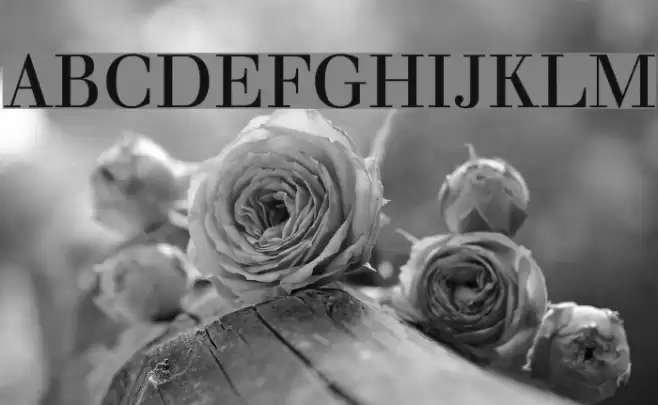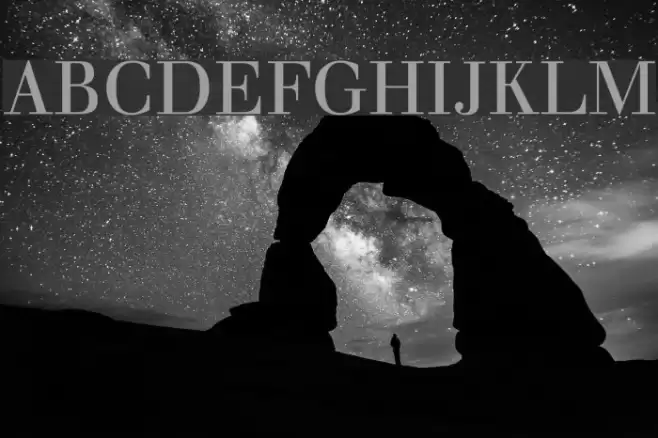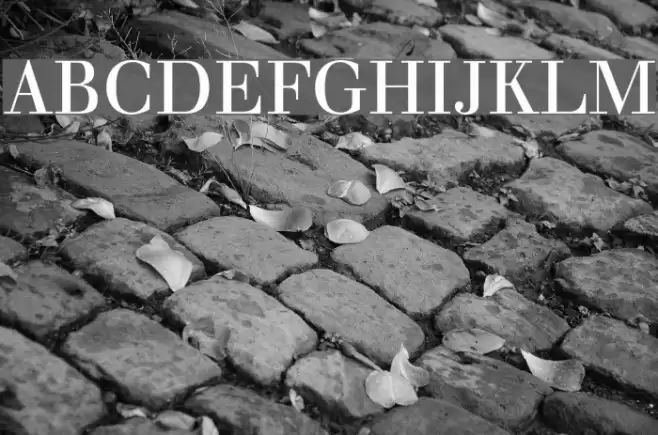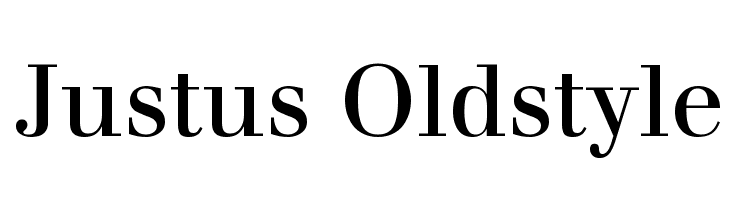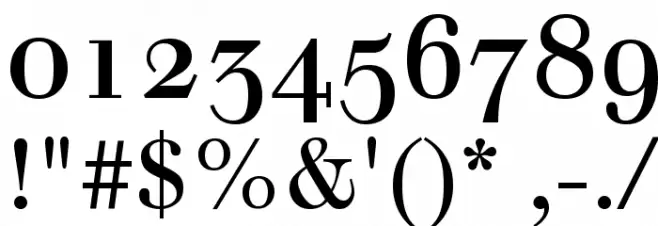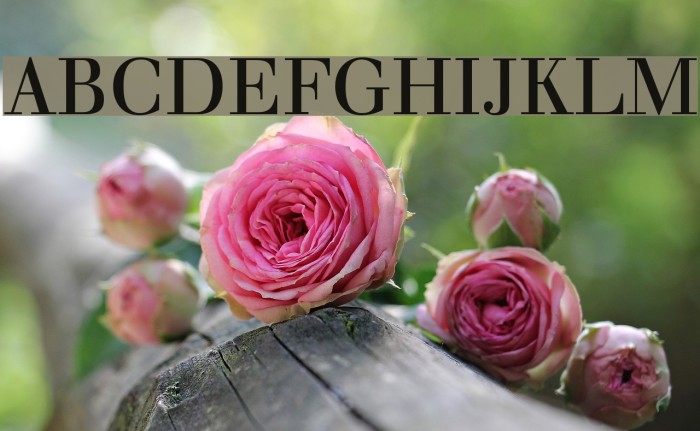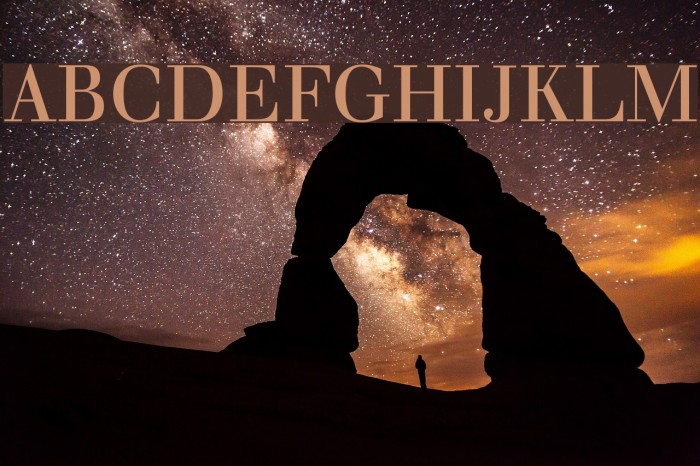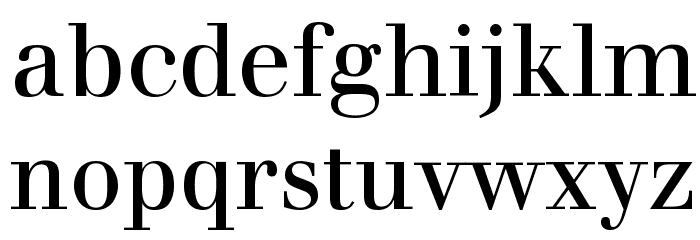
Justus Oldstyle Font
Justus Oldstyle Description
This font exudes a classic elegance with its refined serif details and balanced proportions. The uppercase letters stand tall with a dignified presence, while the lowercase characters maintain a harmonious flow, making it suitable for both formal and creative applications. The numerals are clear and distinct, ensuring readability in various contexts. Special characters are thoughtfully designed, adding versatility to the font's use. The overall design is reminiscent of traditional typefaces, yet it carries a modern touch that makes it adaptable to contemporary design needs.
A classic serif font with elegant details and balanced proportions from Serif fonts.
- Proposed Projects: Ideal for book covers, editorial design, branding projects, and formal invitations.
- Overall Style: Classic